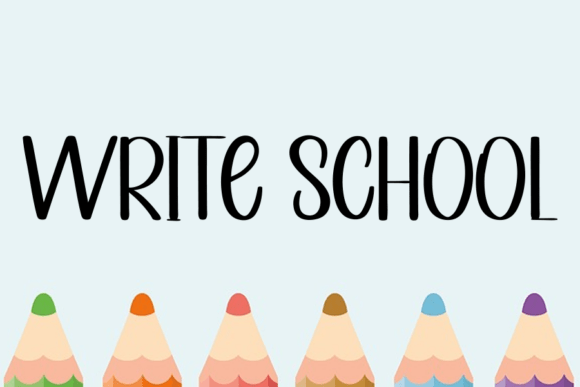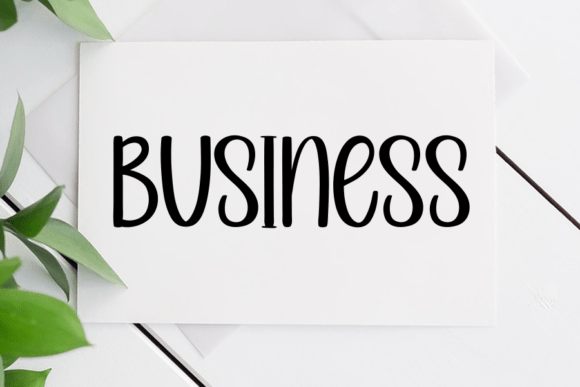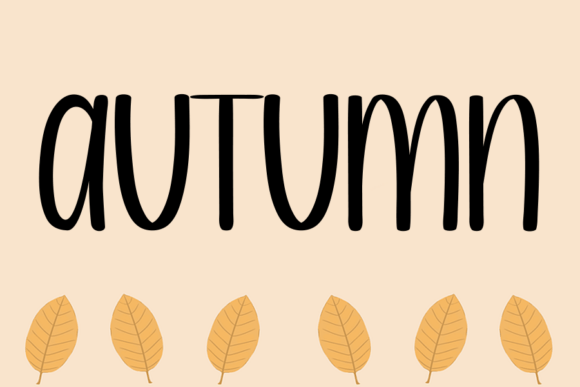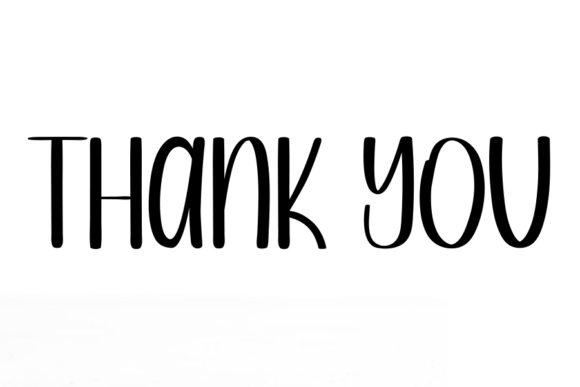
Whimsical Typography: Introducing the Bakes Font
Have you ever found yourself scribbling down a creative idea in a notebook, only to be inspired by the simple, handwritten font that seems to leap off the page? For designers, those fleeting moments of inspiration can be a goldmine of creativity. And that’s exactly what the Bakes Font is – a sweet and cursive handwritten font that’s designed to bring a touch of whimsy to your designs.
The Bakes Font is perfect for adding a joyful and romantic touch to your projects, from branding and logo design to wedding invitations and greeting cards. Its elegant yet casual feel makes it a valuable addition to any designer’s toolkit. Whether you’re looking to create a sense of nostalgia or simply add some visual interest to your designs, the Bakes Font is sure to deliver.
Bakes Font Key Features
- Font Family: Bakes Font is a modern sans-serif font family designed for various digital applications.
- Font Sizes: Bakes Font is available in multiple sizes, ranging from 12pt to 72pt, catering to various design requirements.
- Resolution: Designed for high-resolution displays, Bakes Font supports resolutions up to 300 DPI, ensuring crisp and clear text rendering.
- Unique Characteristics: Bakes Font features a unique blend of geometric and organic elements, resulting in a distinctive and modern aesthetic.
- Language Support: Bakes Font supports a wide range of languages, including Latin, Cyrillic, and Greek scripts, making it suitable for global applications.
Bakes Font Review
Overall, I think Bakes Font has a lot of potential. It’s a fun and playful script font that could be great for creative projects, especially those in the food or baking industry. ✨ The font’s organic and hand-drawn feel makes it perfect for adding a personal touch to recipes, menus, or even packaging.
- Unique and creative feel
- Perfect for food and baking-related projects
- Hand-drawn feel adds a personal touch
However, I do have some concerns about the font’s limitations. ⚠️ For one, the font may not be suitable for body text, as it can be difficult to read at smaller font sizes. Additionally, the font’s irregularities can make it challenging to use in situations where precision is key, such as in titles or headings.
- May not be suitable for body text
- Irregularities can make it challenging to use in certain situations
- Limited character set
Overall, I think Bakes Font is a great choice for designers looking to add a creative touch to their projects. With a little planning and experimentation, it can be a valuable addition to any design toolkit.
Tips for Getting the Most out of Bakes Font
Use Bakes Font in combination with other design elements, such as images and graphics.
Consider using Bakes Font for headings and titles to create a cohesive design aesthetic.
Common Use Cases for Bakes Font
Bakes Font is ideal for creating playful and whimsical designs, such as:
Children’s book illustrations
Food and beverage branding
Alternatives to Bakes Font for Designers
Bakes Font is a popular font, but designers may need alternatives for specific projects. Here are a few options:
Great Vibes is a modern, cursive script font. It’s perfect for creating a relaxed, friendly atmosphere in designs such as invitations, social media graphics, and blog headers.
Great Vibes is similar to Bakes Font in its elegant, handwritten feel. However, it has a more laid-back and casual tone, making it suitable for a wider range of applications.
Playfair Display is a luxurious, high-end serif font. It’s ideal for creating sophisticated and elegant designs such as magazine headlines, luxury brand logos, and high-end product packaging.
Playfair Display is more formal and elegant than Bakes Font, making it suitable for high-end applications. However, it’s less versatile and may not be the best choice for casual or informal designs.